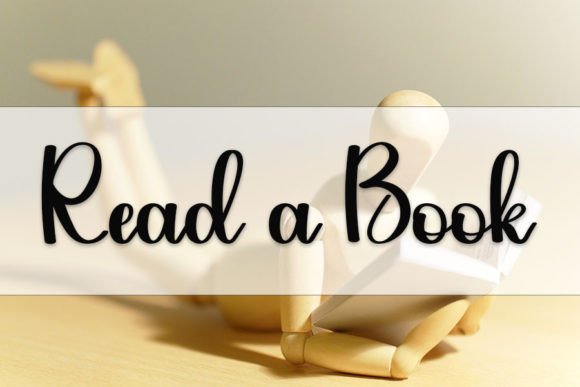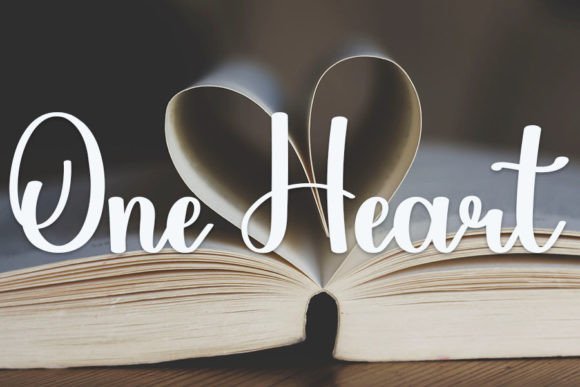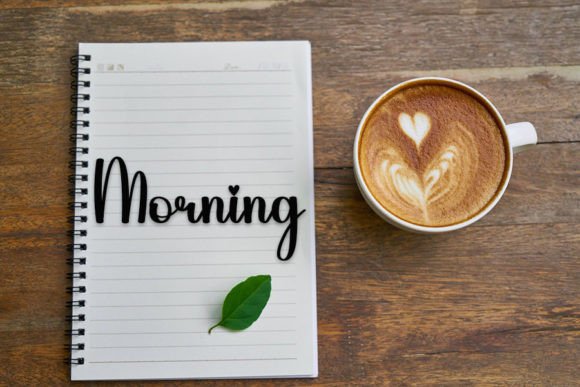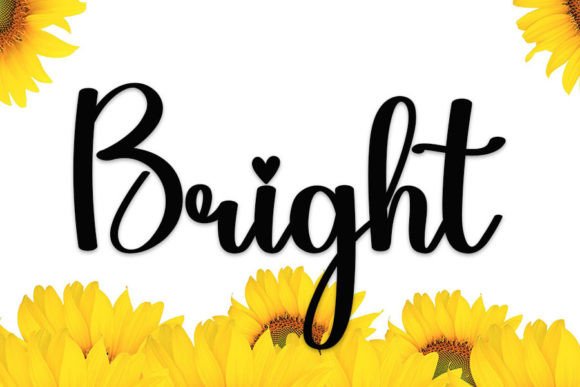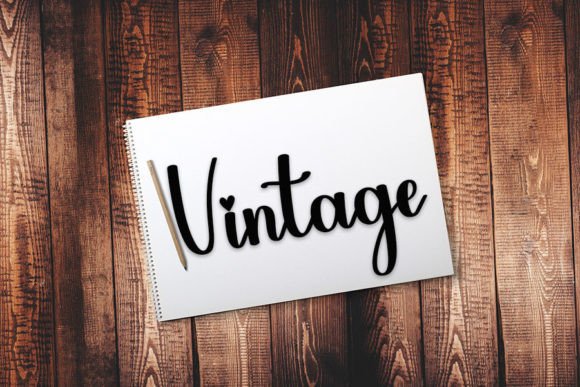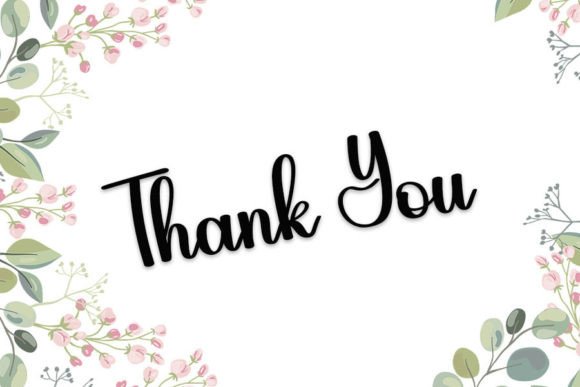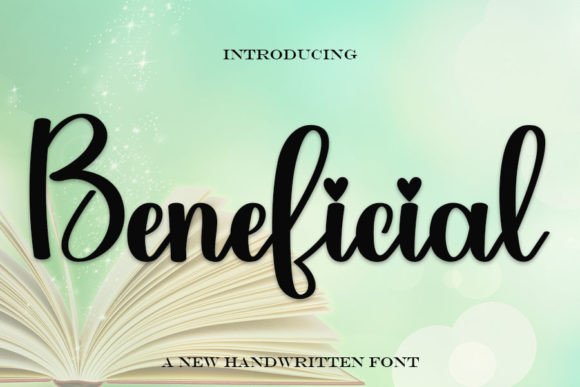
Discover the Elegance of Beneficial Font: Elevate Your Designs with Timeless Style
Are you on the hunt for a font that adds a touch of elegance and sophistication to your designs? Look no further than the Beneficial Font, a stunning handwritten font that is sure to capture your heart. With its unique blend of classic charm and modern flair, Beneficial Font is the perfect choice for designers and crafters looking to create visually stunning projects.
What Makes Beneficial Font So Special?
Beneficial Font is described as a neat and beautiful handwritten font, characterized by an elegant touch that sets it apart from other fonts. Its incredibly distinct and timeless style makes it an excellent choice for a wide range of design projects, from wedding invitations and branding materials to social media graphics and more.
One of the standout features of Beneficial Font is its versatility. Whether you’re looking to create a romantic and whimsical design or a more formal and sophisticated one, this font adapts seamlessly to any style or theme. Its elegant lines and curves add a touch of refinement to any design, making it perfect for designers who want to create high-end visuals.
The Benefits of Using Beneficial Font
So, what are the benefits of using Beneficial Font in your designs? Here are just a few:
• Elegance and Sophistication: Beneficial Font adds a touch of elegance and sophistication to any design, making it perfect for high-end branding and marketing materials.
• Versatility: This font is incredibly versatile, and can be used for a wide range of design projects, from wedding invitations to social media graphics.
• Timeless Style: Beneficial Font has a timeless style that won’t go out of fashion anytime soon, making it an excellent investment for designers and crafters.
• Easy to Read: Despite its elegant lines and curves, Beneficial Font is incredibly easy to read, making it perfect for body text and other applications where readability is key.
How to Use Beneficial Font in Your Designs
Using Beneficial Font in your designs is easy. Here are a few tips to get you started:
• Pair it with Other Fonts: Beneficial Font looks great when paired with other fonts, such as sans-serif fonts like Arial or Helvetica. Experiment with different combinations to find the one that works best for your design.
• Use it for Headings and Titles: Beneficial Font is perfect for headings and titles, where its elegant lines and curves can really shine.
• Add a Personal Touch: Beneficial Font is a great way to add a personal touch to your designs. Use it to create custom illustrations, or to add a handwritten element to your graphics.
Who Can Benefit from Using Beneficial Font?
Beneficial Font is perfect for a wide range of designers and crafters, including:
• Graphic Designers: Graphic designers can use Beneficial Font to create stunning branding materials, social media graphics, and more.
• Wedding Planners and Stylists: Wedding planners and stylists can use Beneficial Font to create beautiful wedding invitations, stationery, and other materials.
• Crafters and Artists: Crafters and artists can use Beneficial Font to add a personal touch to their handmade crafts and artwork.
In conclusion, Beneficial Font is a stunning handwritten font that is sure to elevate your designs to the next level. With its elegant lines and curves, timeless style, and versatility, it’s the perfect choice for designers and crafters looking to create visually stunning projects. Whether you’re looking to create a romantic and whimsical design or a more formal and sophisticated one, Beneficial Font is an excellent choice. So why wait? Fall in love with Beneficial Font today, and start creating spectacular designs that will leave a lasting impression!